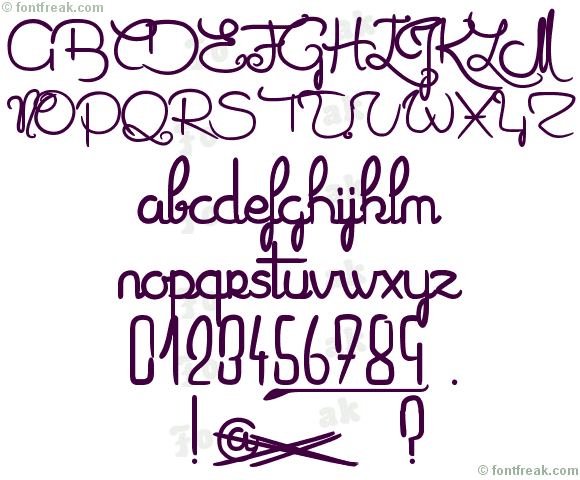
Marguerite
The Marguerite font by Maelle.K is a captivating script typeface that embodies elegance and charm. This handwritten style font features a fluid, flowing script with graceful curves and a soft, inviting appearance. The stroke weight varies throughout, providing a harmonious contrast that enhances its aesthetic appeal. The generous spacing between characters allows for readability while maintaining a casual, intimate feel, making it perfect for a variety of design applications.
Marguerite is ideal for wedding invitations, where its romantic flair can set the tone for a special day. It also works beautifully for greeting cards, where the warm, personal touch can create a memorable connection. Restaurant menus can benefit from its stylish appearance, enticing diners with an inviting presentation of their culinary offerings. Additionally, the font is suited for branding materials, helping small business owners convey a unique identity that stands out in a crowded market. Content creators will find Marguerite particularly useful in social media graphics, where its eye-catching style can enhance engagement.
What truly sets the Marguerite font apart is its balance of sophistication and approachability. It captures the essence of handwritten notes while maintaining the professionalism required for various design contexts. Whether you are crafting invitations, menus, or branding elements, Marguerite offers a unique touch that can elevate your work. Download this font today and discover how it can enhance your creative projects.